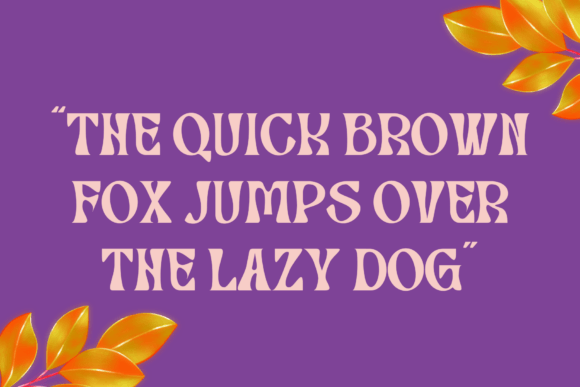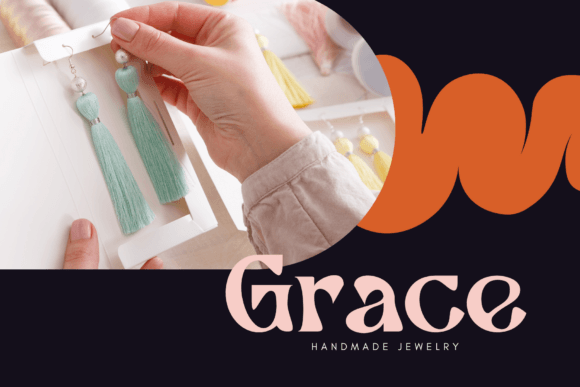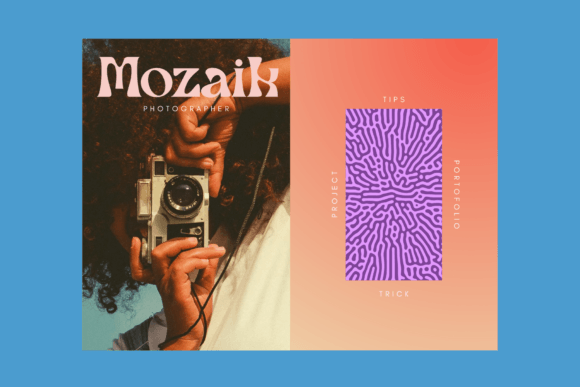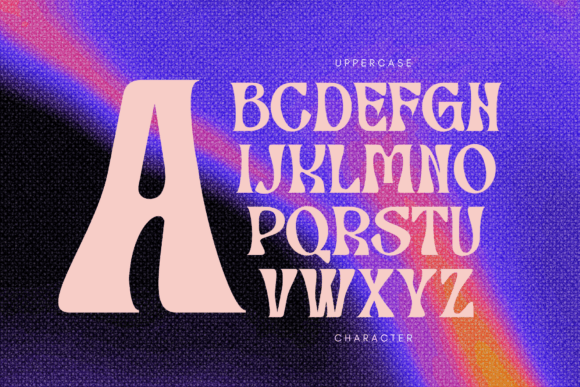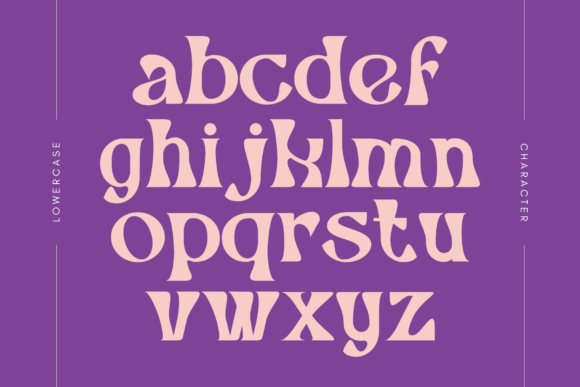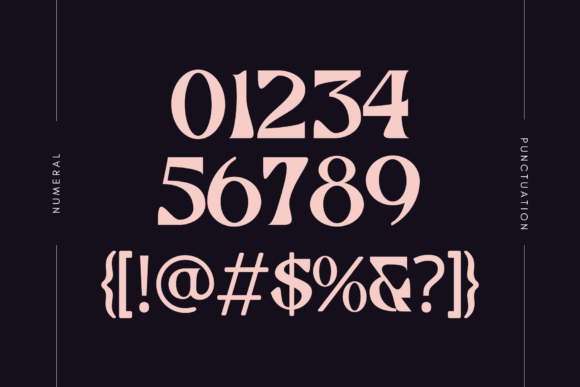
Faodu Font: A Retro-Inspired Typographic Marvel
Are you ready to take a bold step into the nostalgic era of the ’60s? Look no further than the Psychedelia font, a wonderfully quirky and retro-inspired typography that embodies the spirit of Funk music. This font is a fusion of vintage and funky elements, impeccably woven to create a typographic marvel that invokes feelings of rebellion, freedom, and creativity.
The Psychedelic Era: A Time of Revolution and Self-Expression
The 1960s was a transformative time in history, marked by social and cultural upheaval. The era was characterized by a sense of rebellion and nonconformity, as people sought to challenge the status quo and express themselves freely. This was reflected in the music, art, and fashion of the time, which was marked by bold colors, patterns, and typography. The Psychedelia font is a product of this era, inspired by the vibrant and eclectic aesthetic of the time.
Introducing Faodu Font: A Bold and Funky Typography
Faodu Font, also known as Psychedelia font, is a bold and funky typography that captures the essence of the ’60s. This font is designed to evoke the feeling of freedom and creativity that defined the era, with its bold lines, curvaceous shapes, and vibrant colors. Whether you’re a designer, craftsperson, or simply someone who appreciates the aesthetic of the ’60s, Faodu Font is the perfect choice for your design projects.
Key Features of Faodu Font
- Retro-Inspired Design: Faodu Font is inspired by the typography of the ’60s, with its bold lines, curvaceous shapes, and vibrant colors.
- Bold and Funky: This font is designed to make a statement, with its bold and funky aesthetic that’s sure to turn heads.
- Vintage and Funky Elements: Faodu Font combines vintage and funky elements to create a unique and eye-catching typography.
- Era Authenticity: This font is designed to evoke the feeling of the ’60s, with its authentic typographic style and aesthetic.
Uses of Faodu Font
Faodu Font is a versatile typography that can be used in a variety of design projects, including:
- Graphic Design: Use Faodu Font to add a touch of nostalgia and funk to your graphic design projects, such as posters, flyers, and brochures.
- Logos and Branding: Create a bold and eye-catching logo or brand identity with Faodu Font, perfect for businesses that want to stand out from the crowd.
- Digital Art: Use Faodu Font to add a touch of retro flair to your digital art projects, such as illustrations, animations, and videos.
- Crafting and Scrapbooking: Add a touch of nostalgia and whimsy to your crafting and scrapbooking projects with Faodu Font, perfect for creating unique and eye-catching designs.
Tips for Using Faodu Font
- Use it boldly: Faodu Font is designed to make a statement, so don’t be afraid to use it boldly and prominently in your design projects.
- Experiment with colors: The ’60s were all about bold colors and patterns, so experiment with different colors and combinations to find the perfect look for your design project.
- Pair it with other fonts: Faodu Font can be paired with other fonts to create a unique and eye-catching typographic combination.
Faodu Font, also known as Psychedelia font, is a retro-inspired typography that embodies the spirit of the ’60s. With its bold lines, curvaceous shapes, and vibrant colors, this font is perfect for designers, craftspersons, and anyone who appreciates the aesthetic of the ’60s. Whether you’re looking to add a touch of nostalgia and funk to your design projects, or simply want to evoke the feeling of freedom and creativity that defined the era, Faodu Font is the perfect choice.